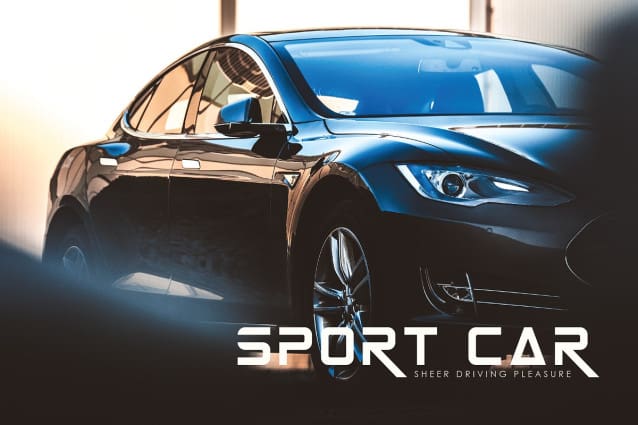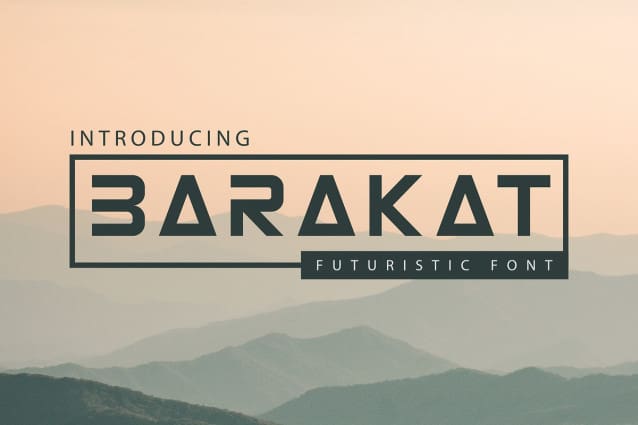
Barakat Font
Barakat Font, created by Denustudios, A serif modern and classic typeface that has own unique style & modern look. This typeface is perfect for an elegant & luxury logo, book or movie title design, fashion brand, magazine, clothes, lettering, quotes, and so much more.